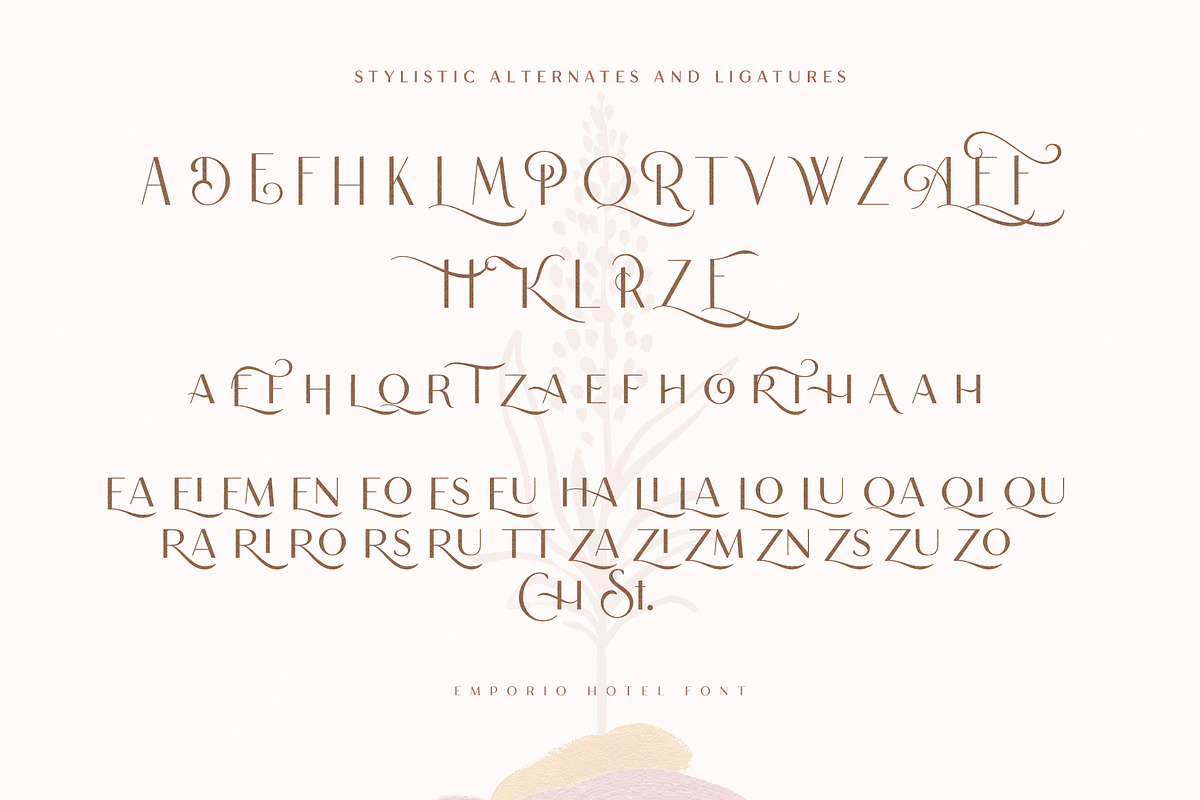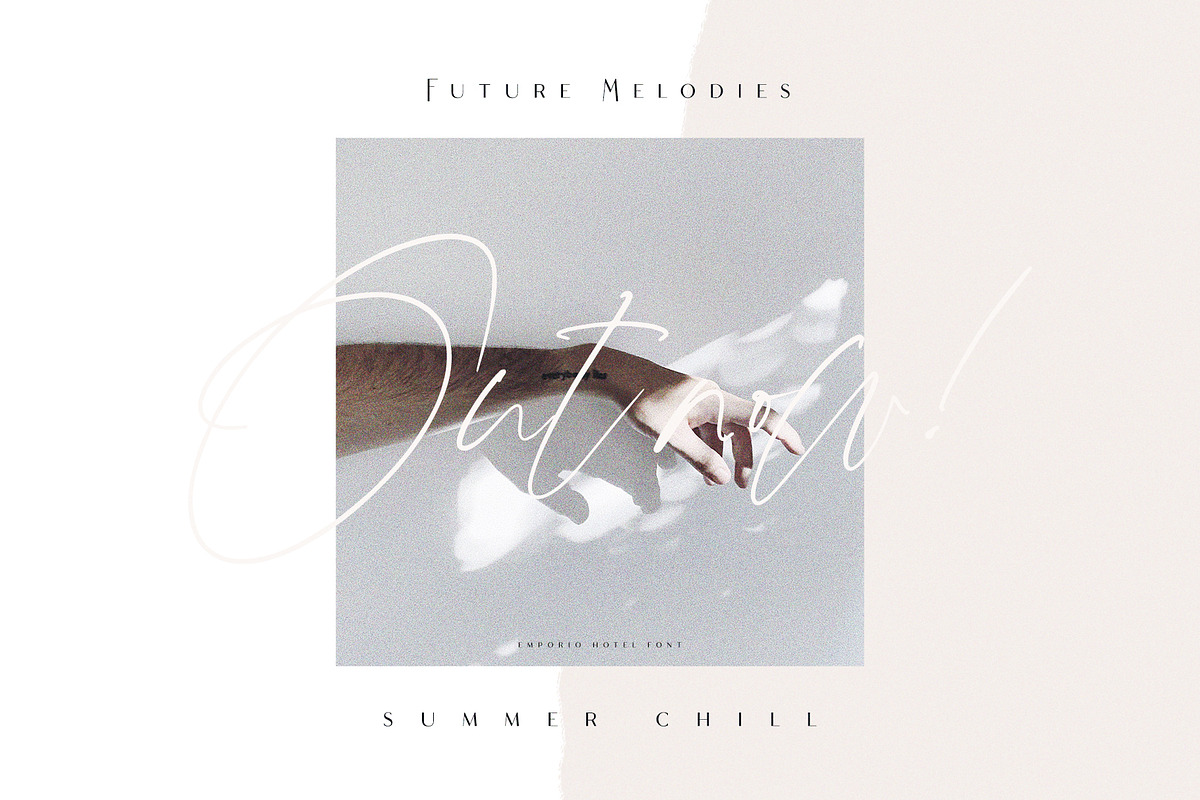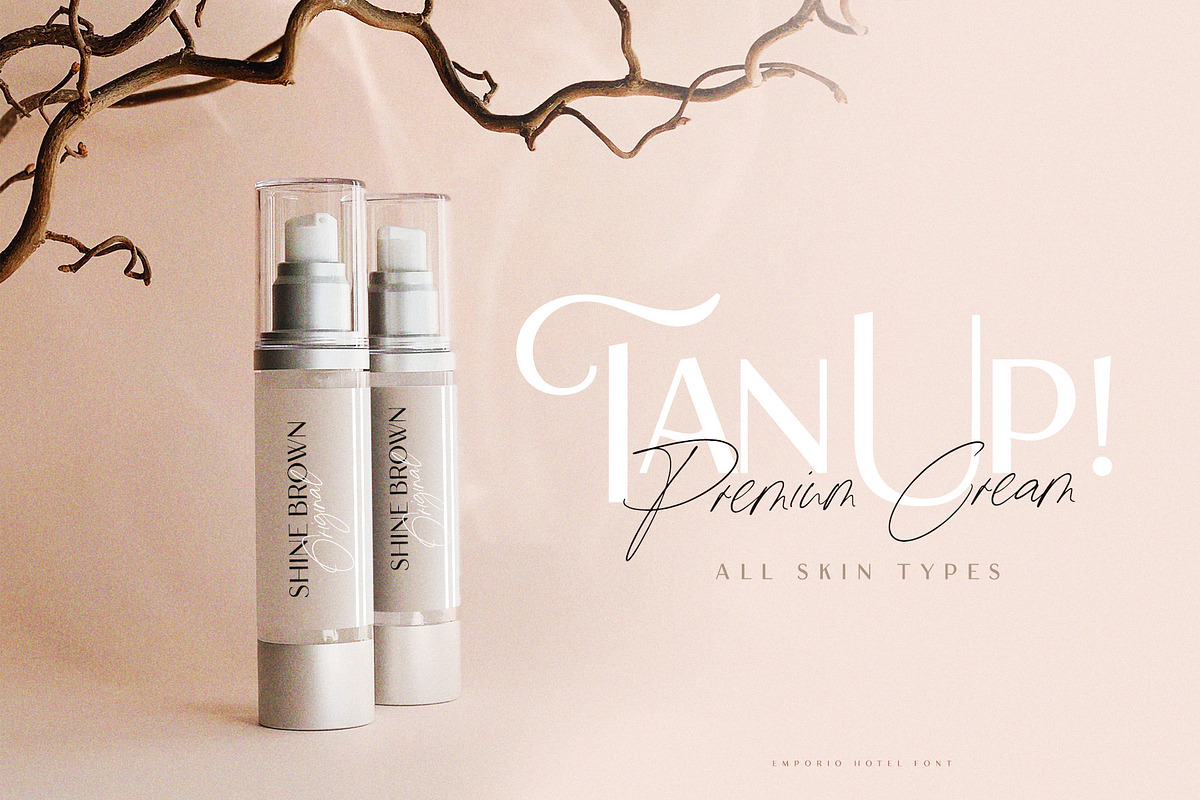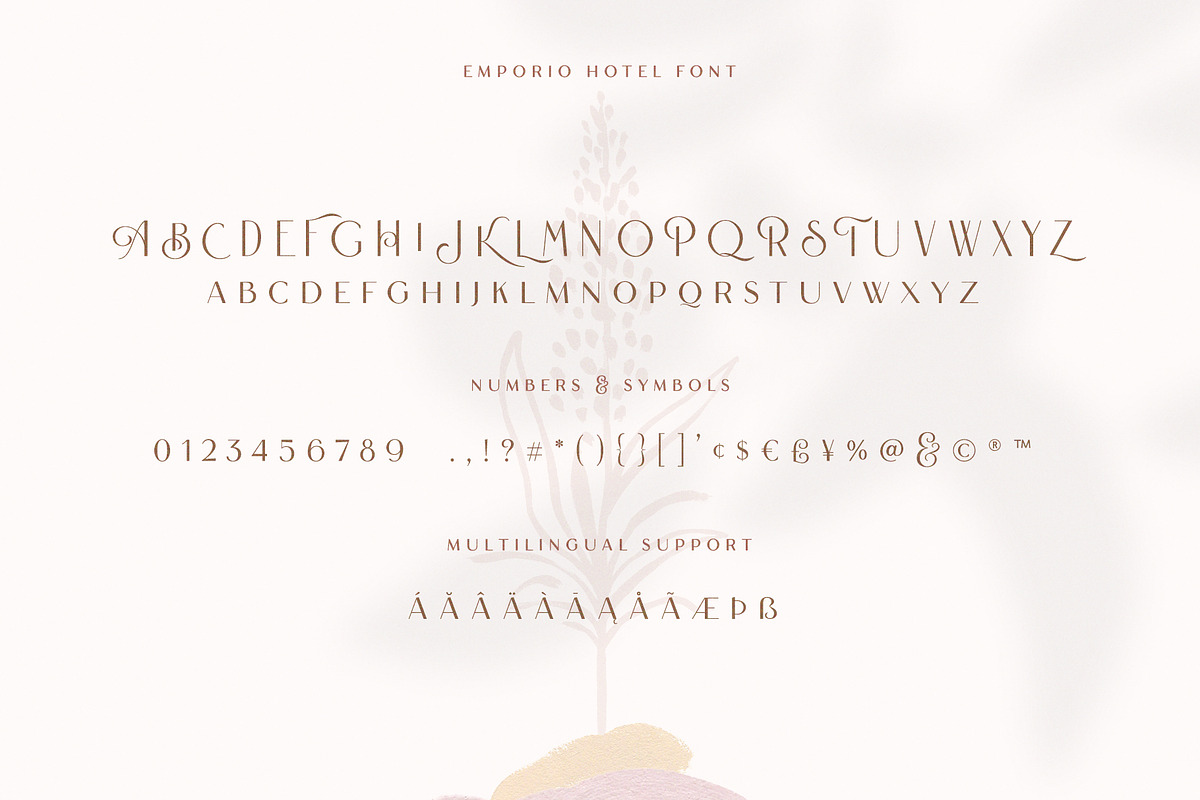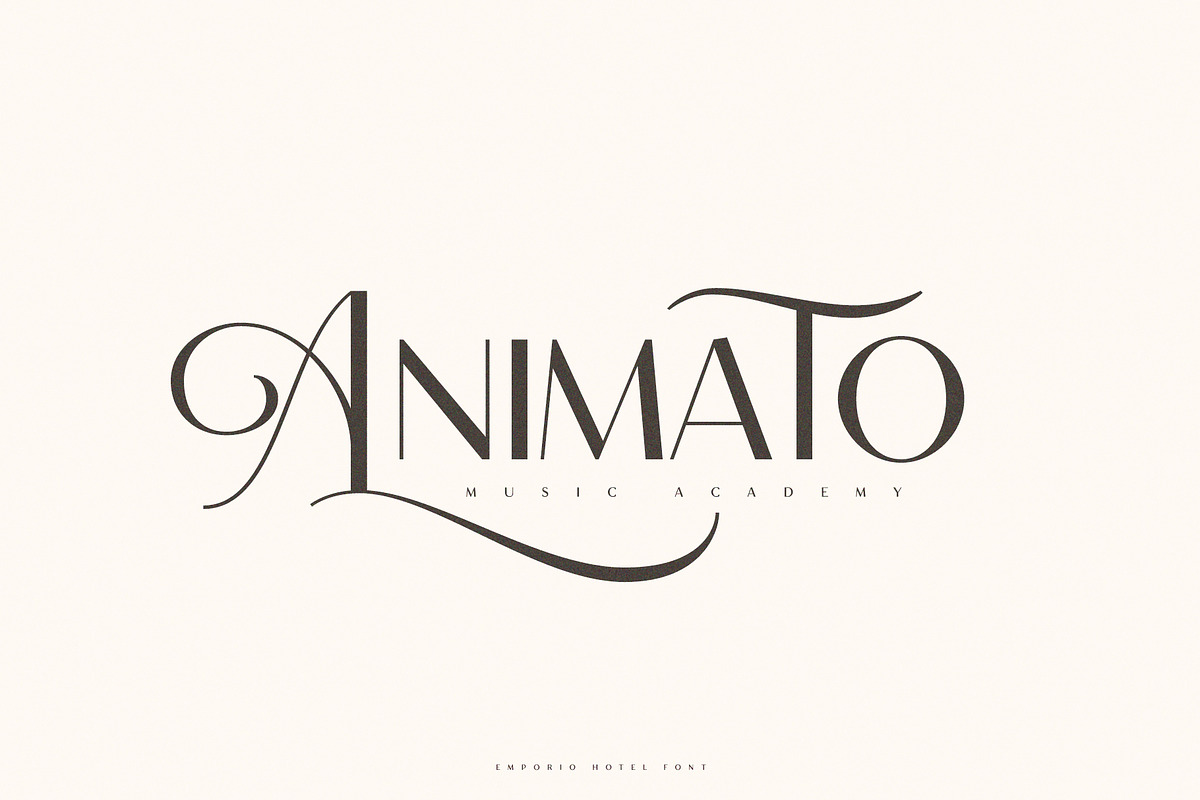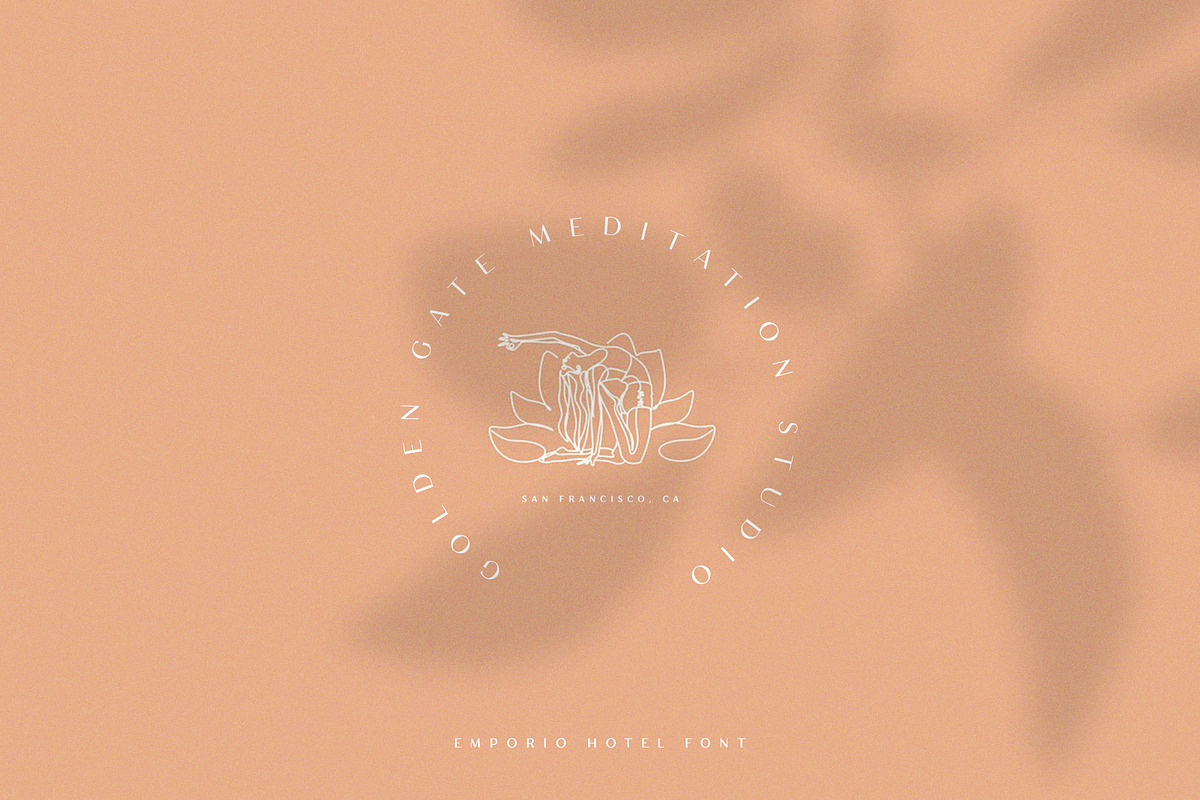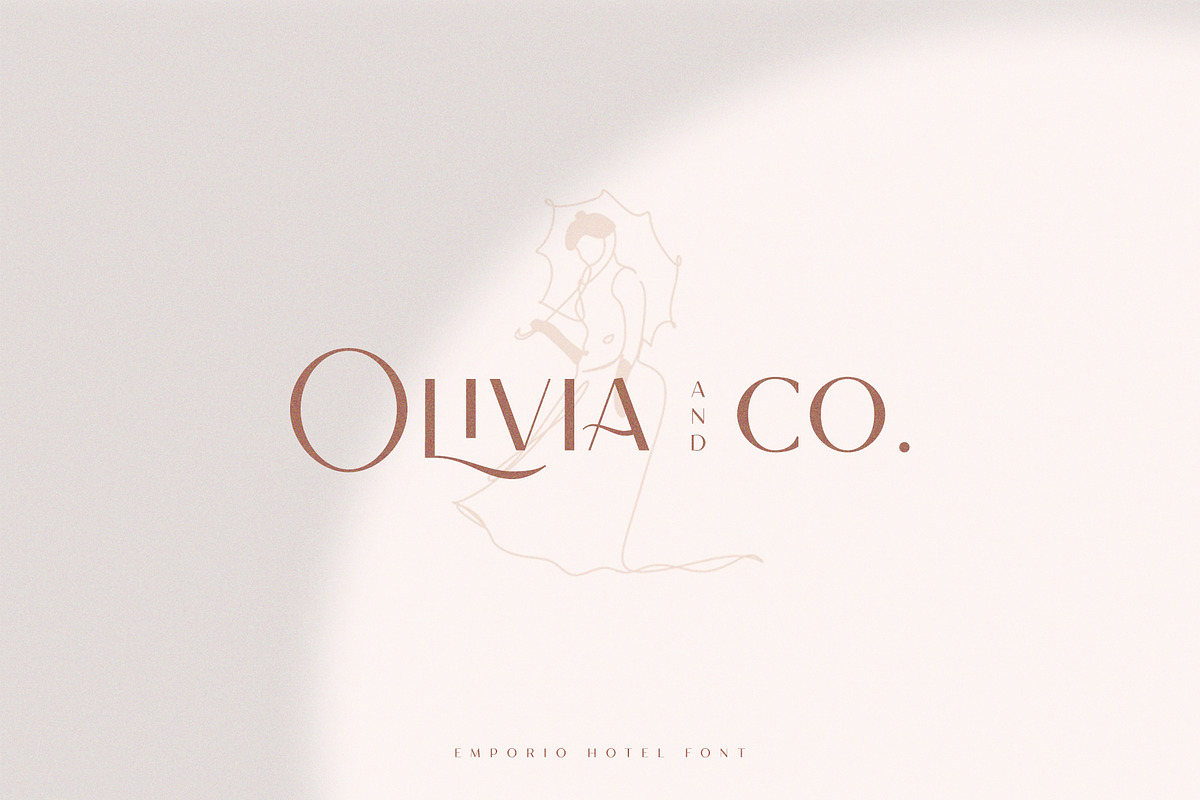
Emporio Hotel Font
Introducing Emporio Hotel - A Gorgeous modern sans serif font with ton of stylistic alternates and ligatures to choose. Works wonderfully on its own for logos, headlines, posters, packaging, invitations, fashion, social media and many more! It comes in two different weights to choose, your option to create more unique and versatile design is a lot wider.
LANGUAGE SUPPORT FOR WESTERN AND CENTRAL EUROPE.
Emporio Hotel Font by Ivan Rosenberg fits naturally into Branding, posters, packaging, typography.